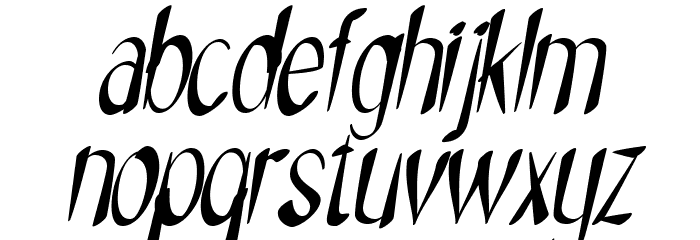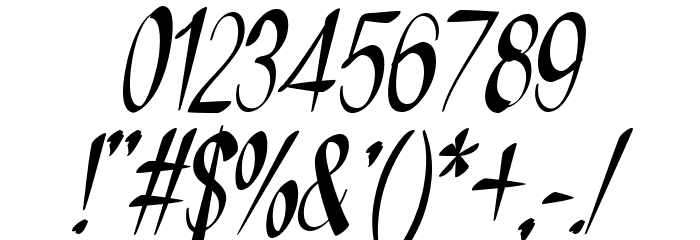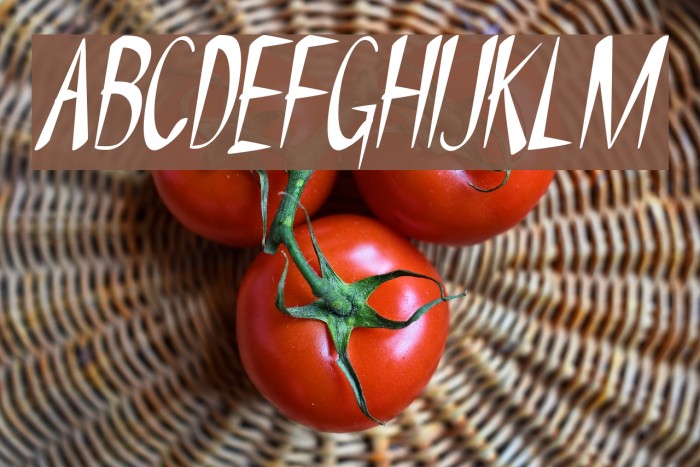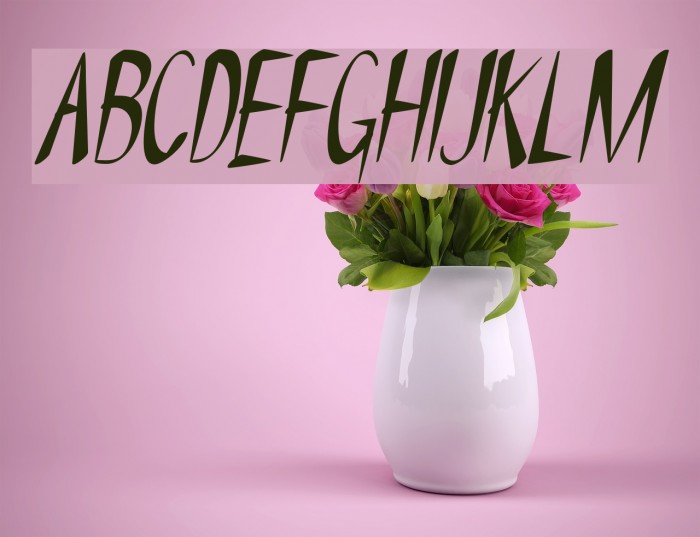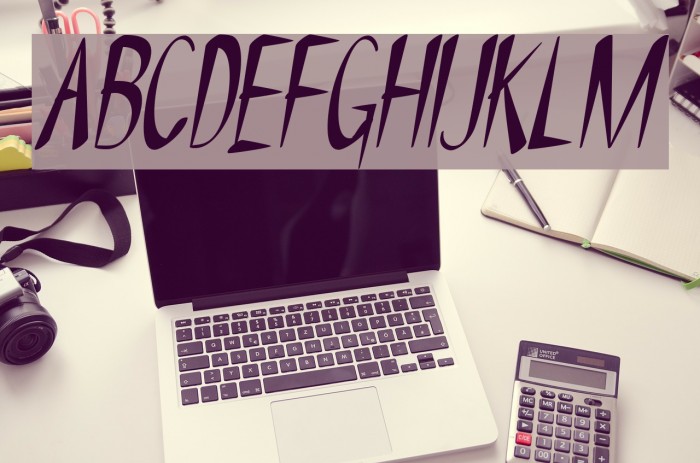
NYOEHOKA-Italic Font
This font features a dynamic and expressive italic style, characterized by its sharp, angular strokes and pronounced slant. The uppercase letters are bold and striking, with a unique flair that adds a sense of movement and energy. The lowercase letters maintain this dynamic quality, offering a cohesive and visually engaging appearance. The numbers are consistent with the overall style, providing a bold and clear presentation. Special characters are designed with the same attention to detail, ensuring they complement the alphabetic characters seamlessly. The font's high contrast between thick and thin strokes enhances its dramatic effect, making it suitable for eye-catching designs.
A bold, italic font with dynamic, angular strokes and high contrast.
- Proposed Projects: Ideal for branding, advertising, poster design, and any project requiring a bold, expressive typeface.